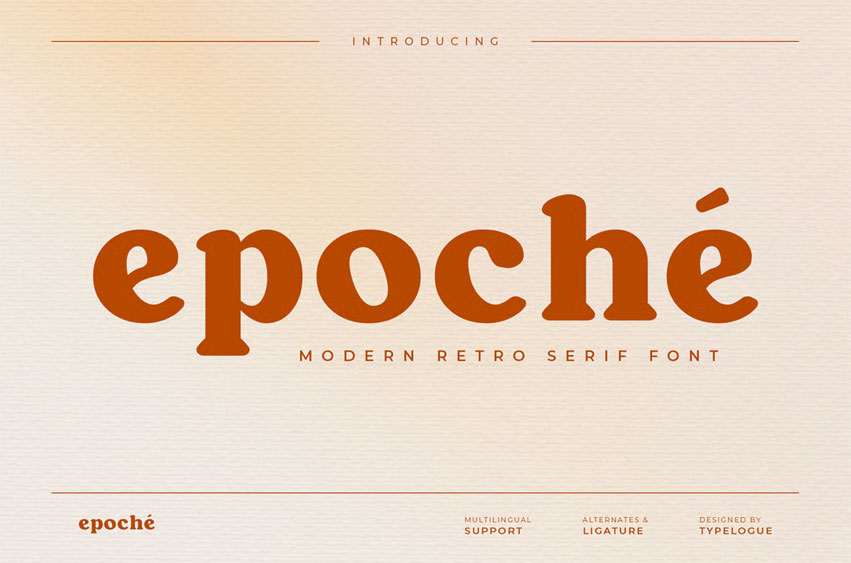
Epoche Font is a playful yet refined rounded serif display typeface that captures the charm of vintage lettering with a modern twist.
Its soft curves and bold presence make it ideal for editorial headlines, boutique branding, and creative packaging. Perfect for coffee shops, lifestyle magazines, and artistic projects, epoché adds warmth and sophistication without losing its contemporary appeal. This font stands out in both print and digital use, ensuring your design feels inviting, confident, and timeless.